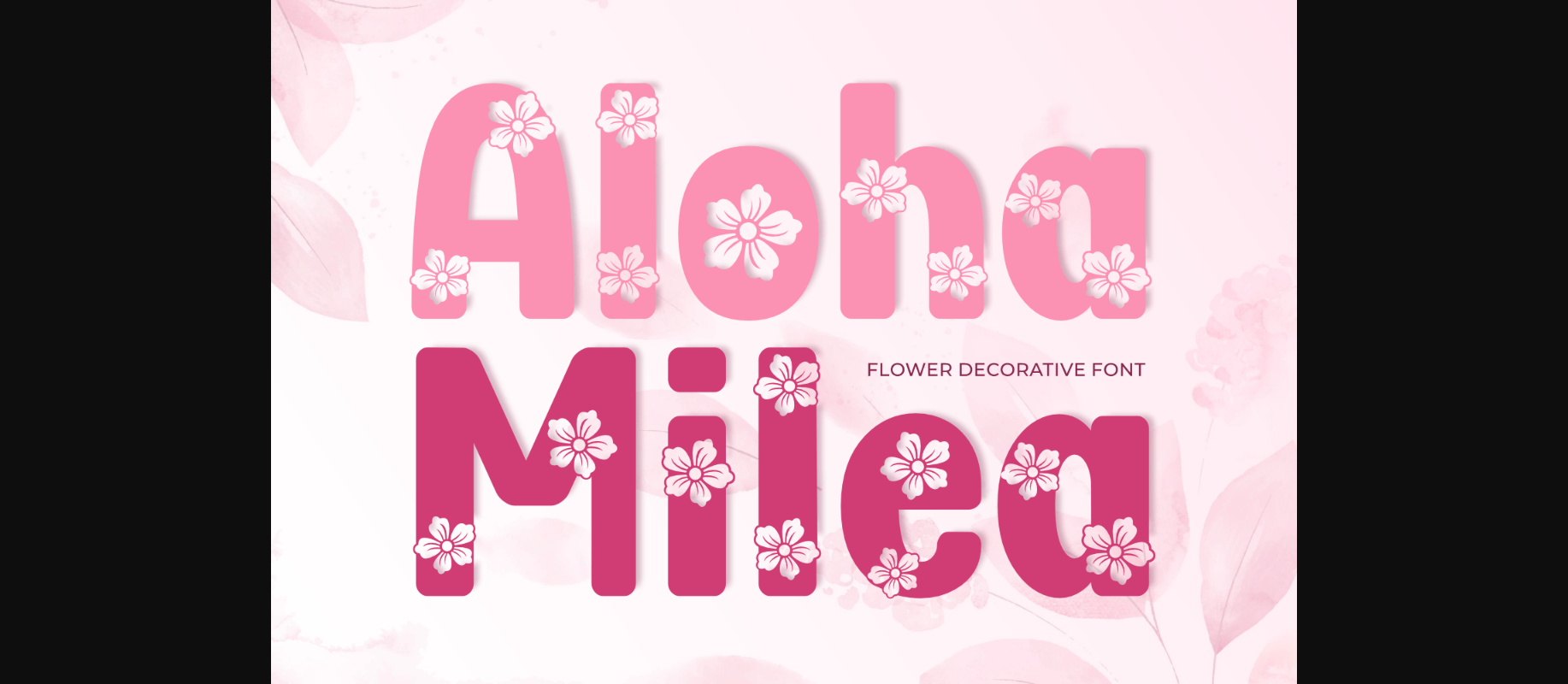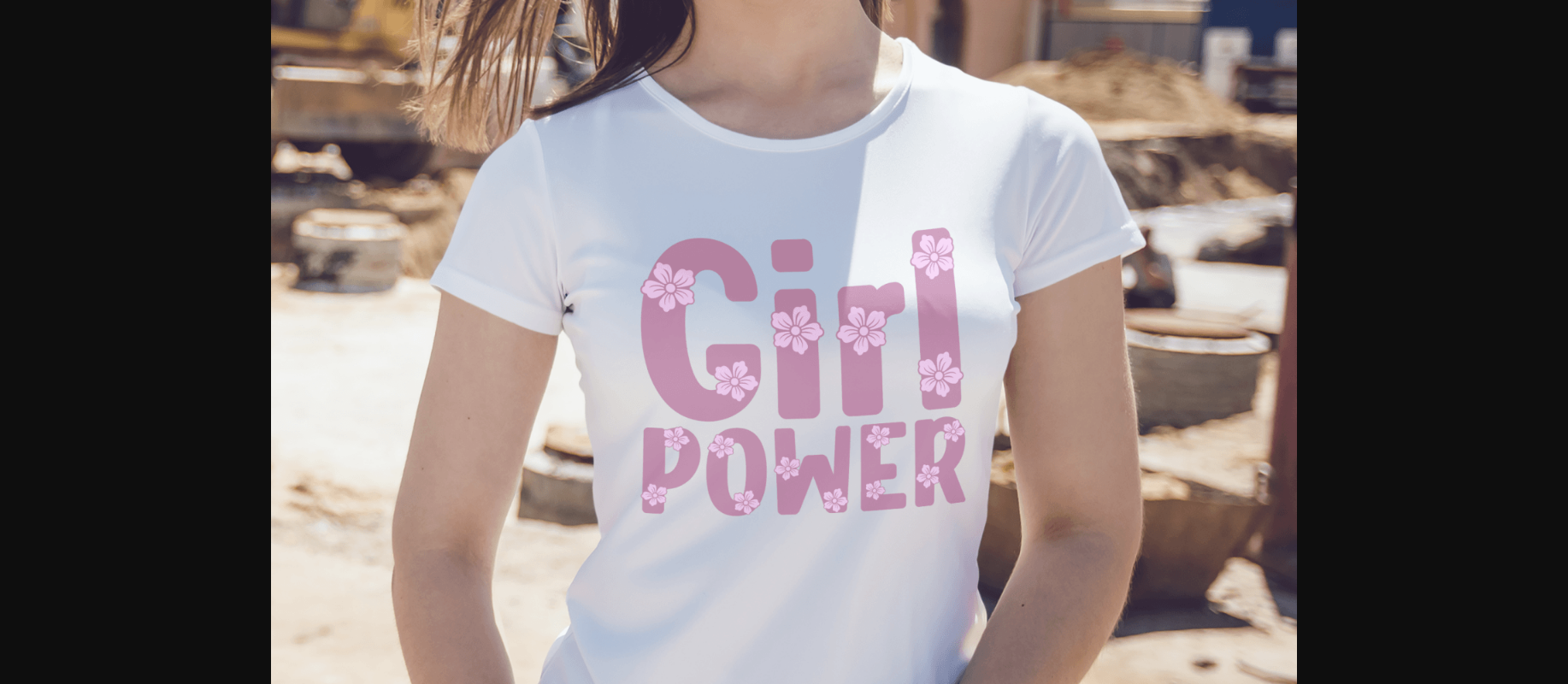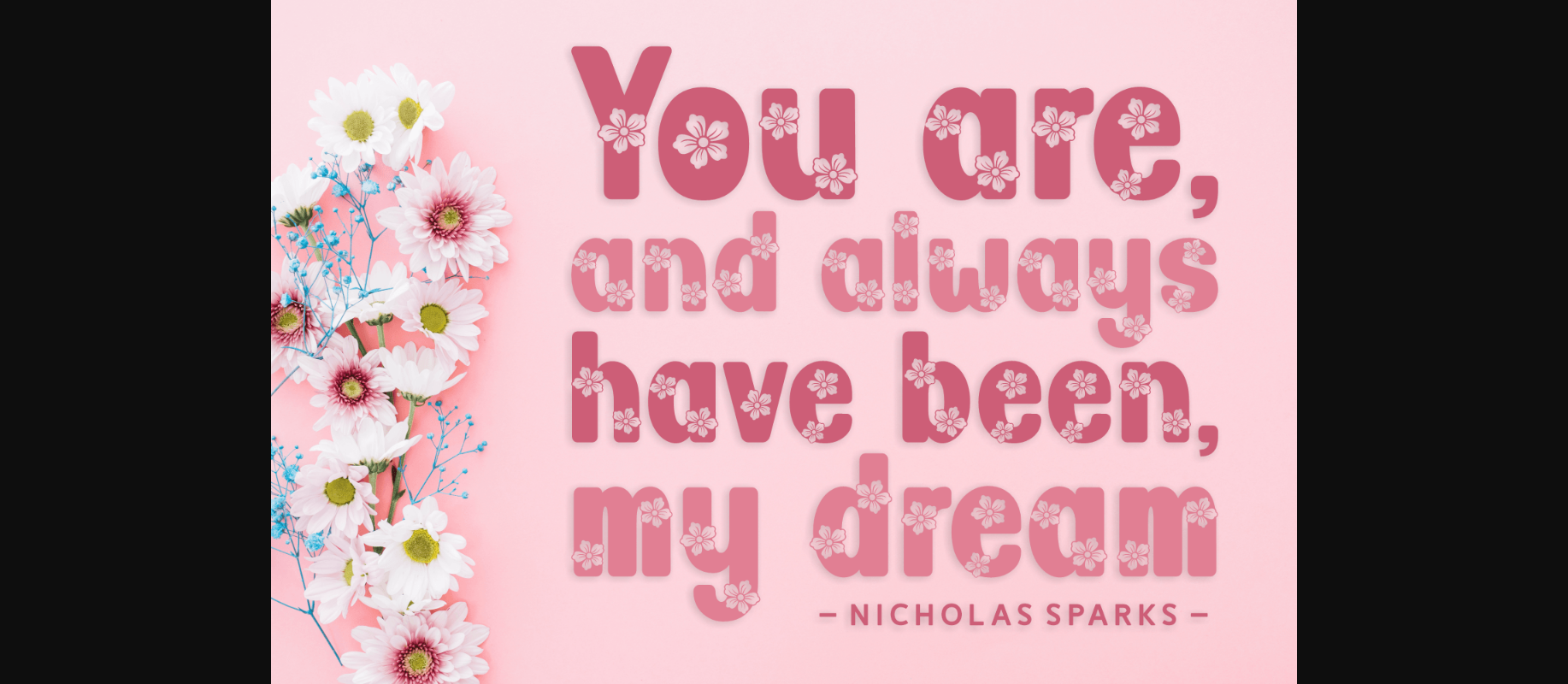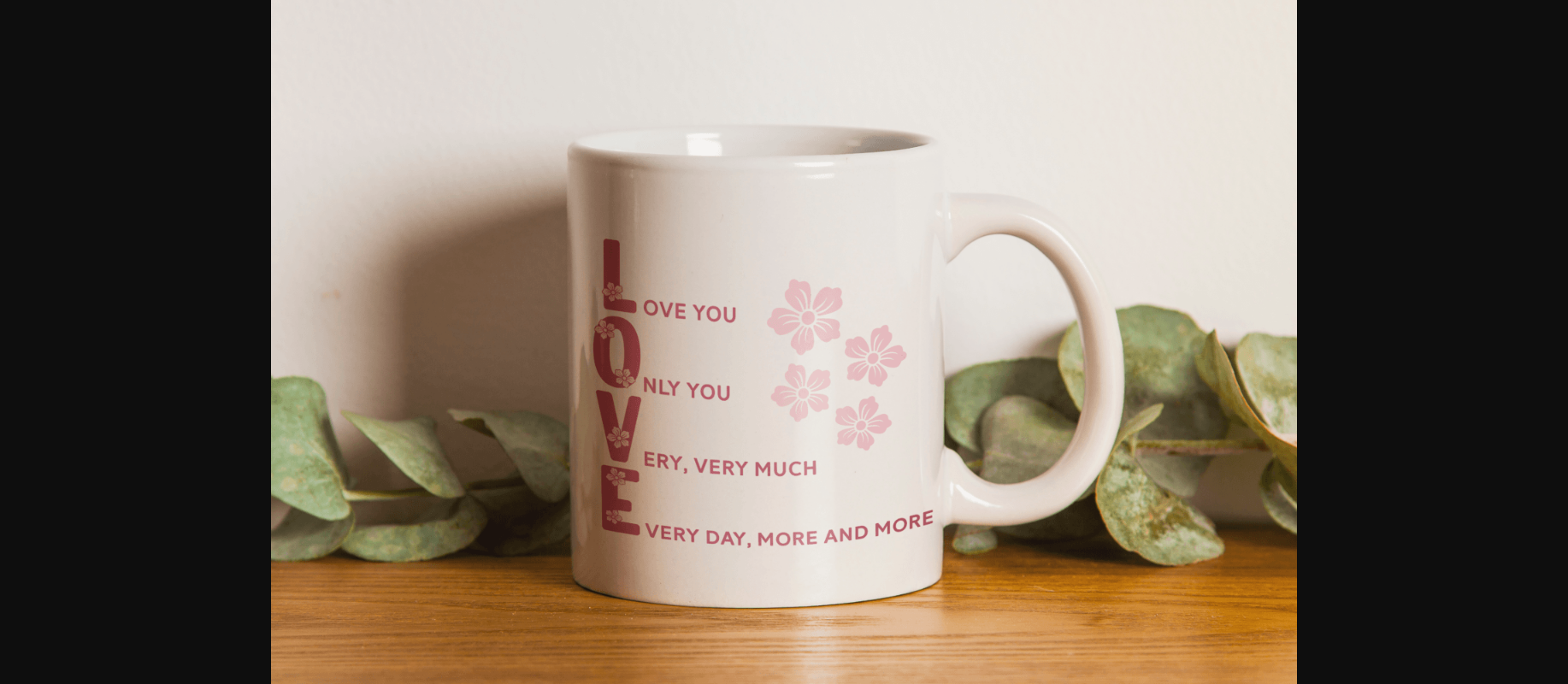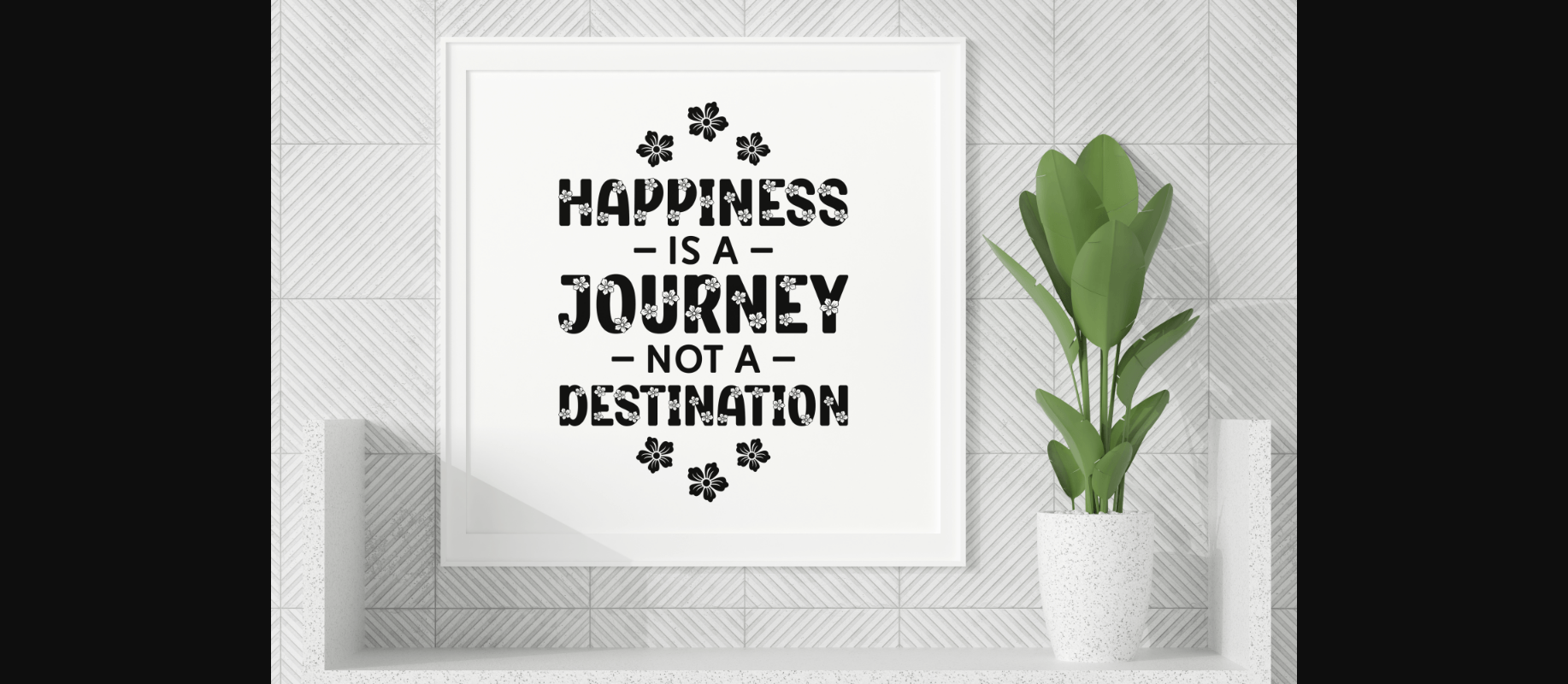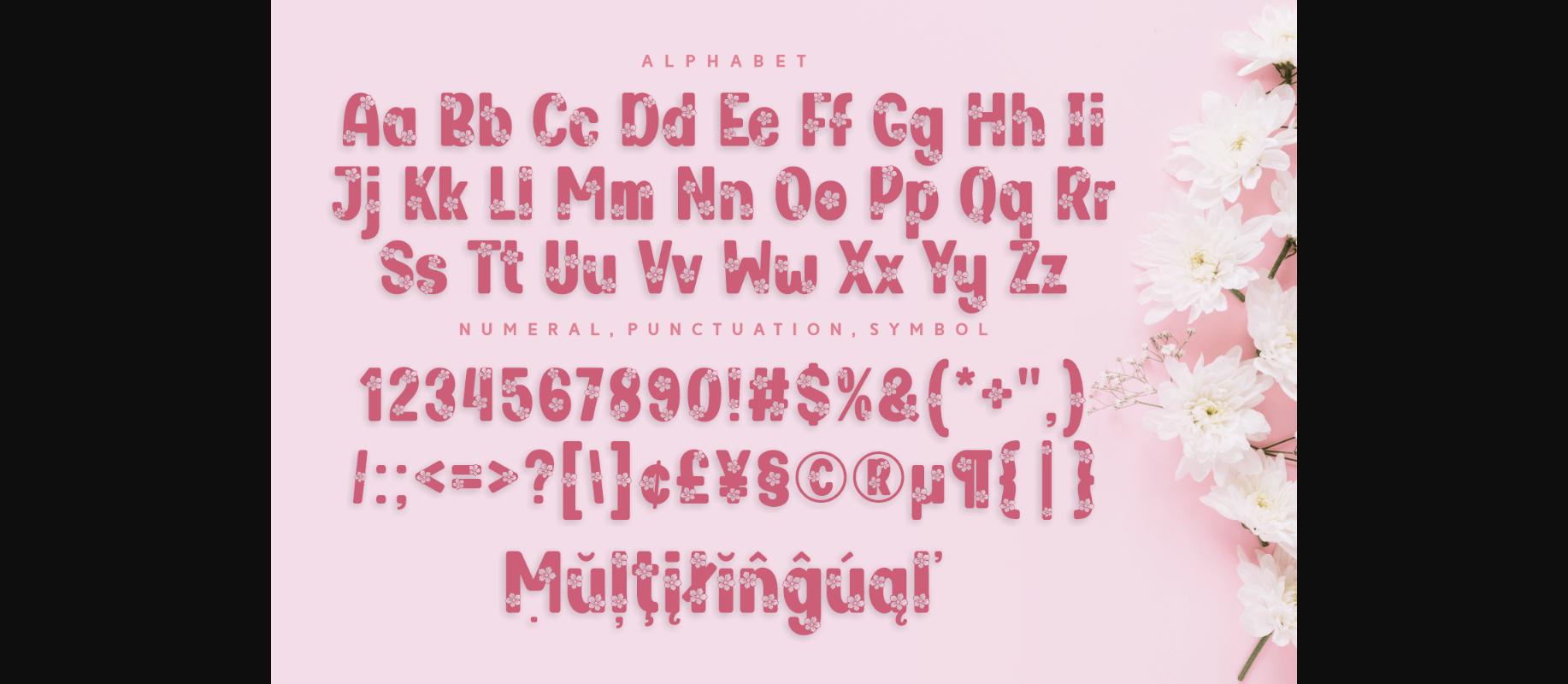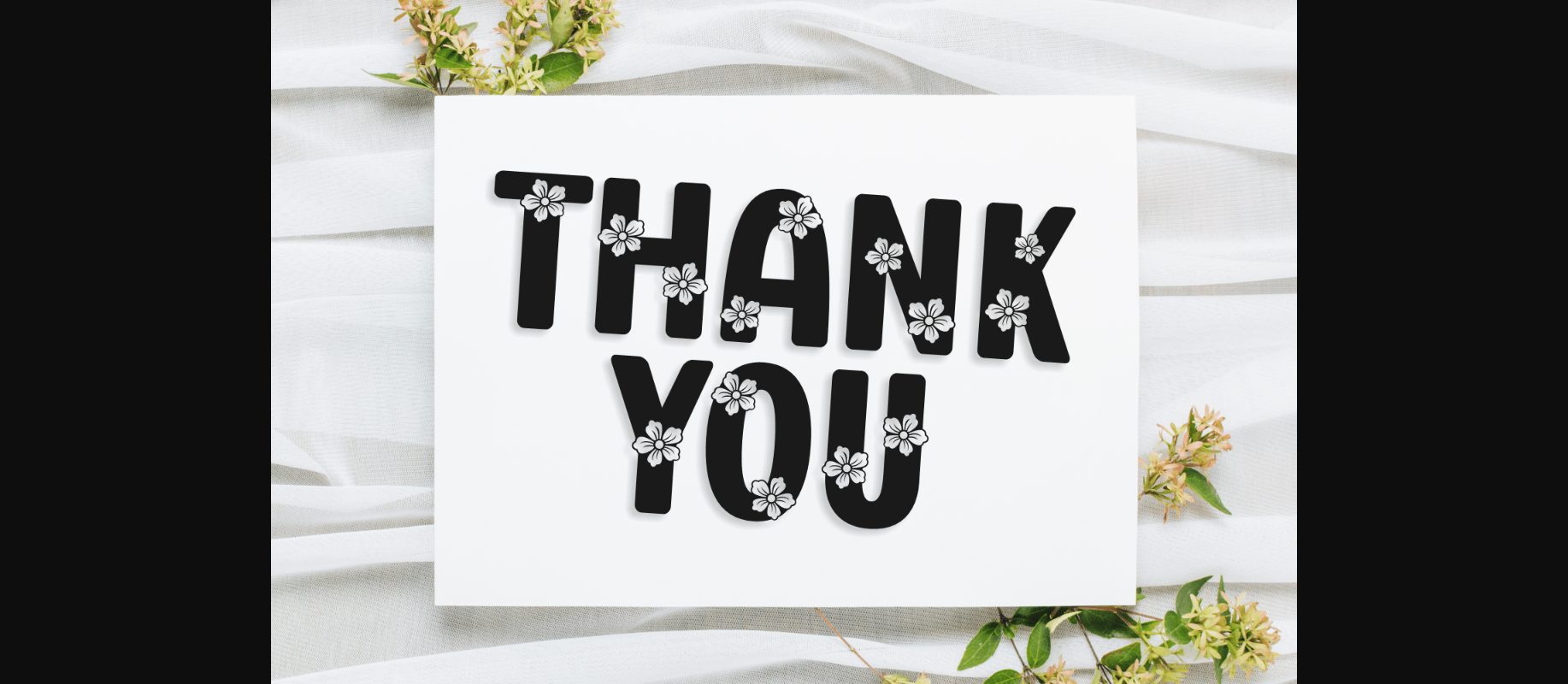
Aloha Milea Font
About Aloha Milea Font
Aloha Milea is a beautiful decorative font with floral elements. Create lovely designs with this charming font that will suit various projects – Mother’s day gifts, invitations, logos, summer designs, and many more!